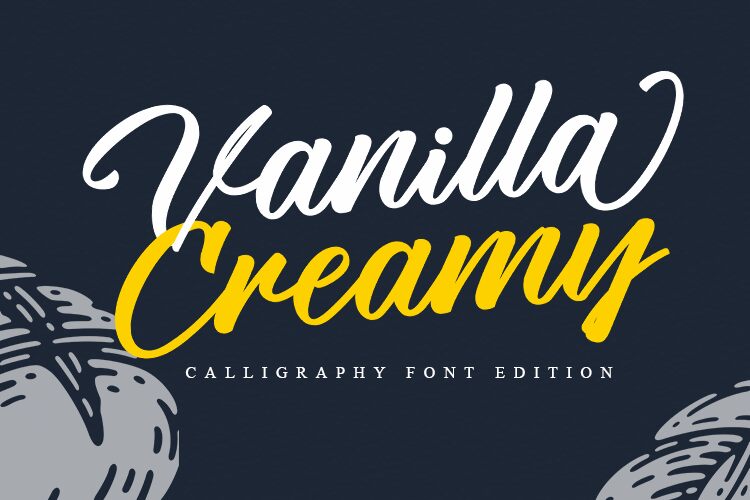
Vanilla Creamy, designed by Four Lines, is a stunning calligraphy font that will add a touch of elegance and sophistication to any project. Its semi-light weight lends itself perfectly to wedding invitations, greeting cards or any other project that requires a delicate touch. The beautifully curved lines of this font will make your text flow gracefully across the page. Whether you're creating a romantic love letter or an elegant menu for your restaurant, Vanilla Creamy is sure to impress. So why wait? Start creating beautiful designs with Vanilla Creamy today!